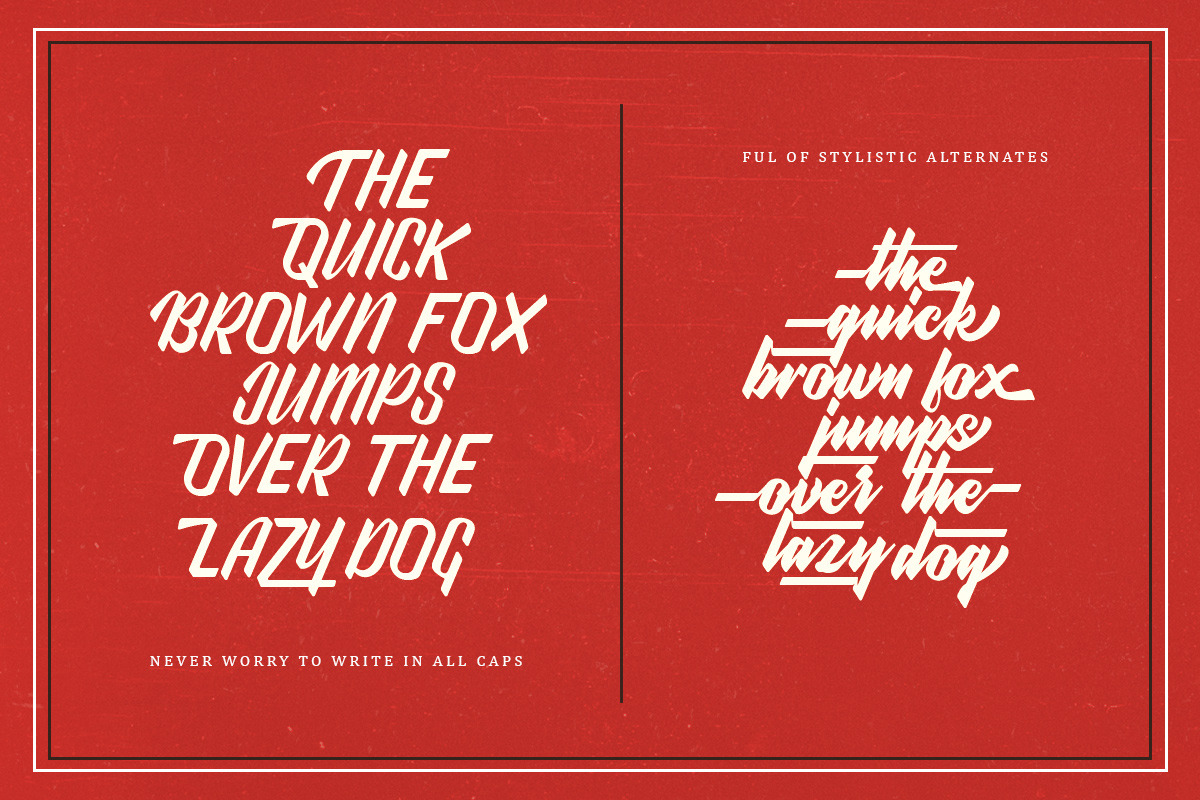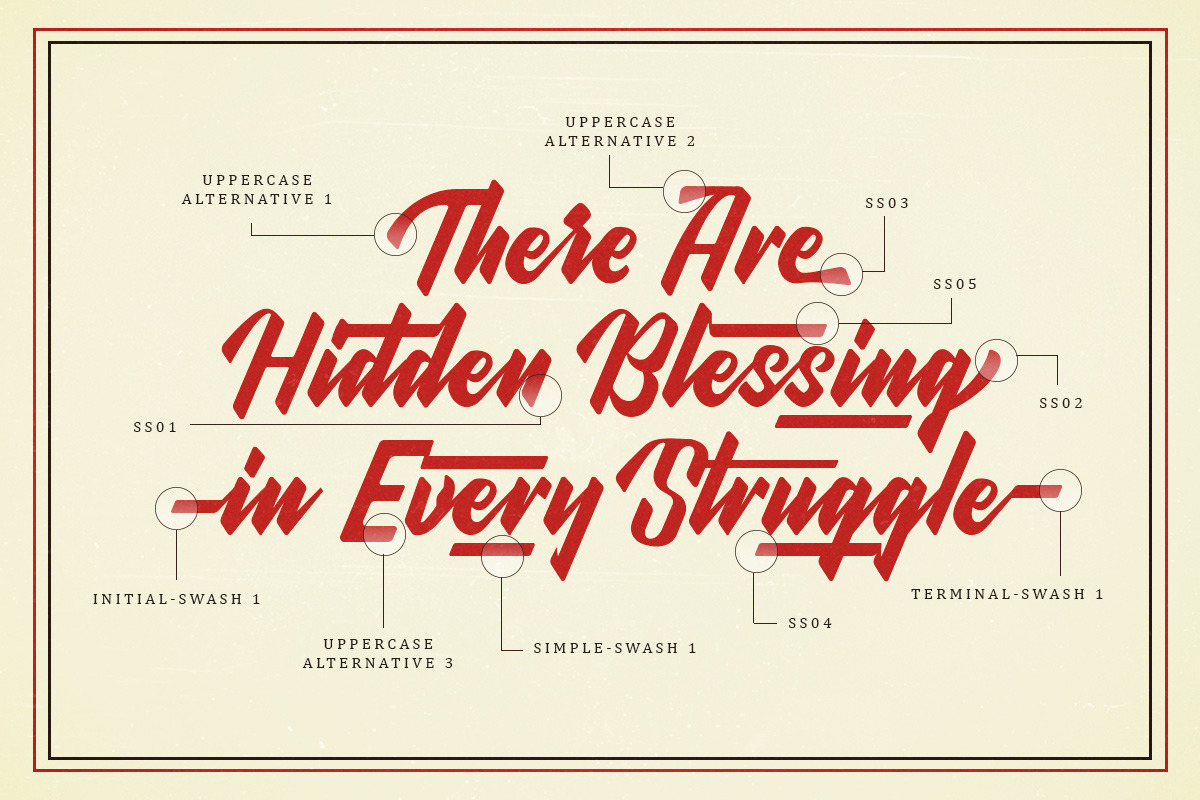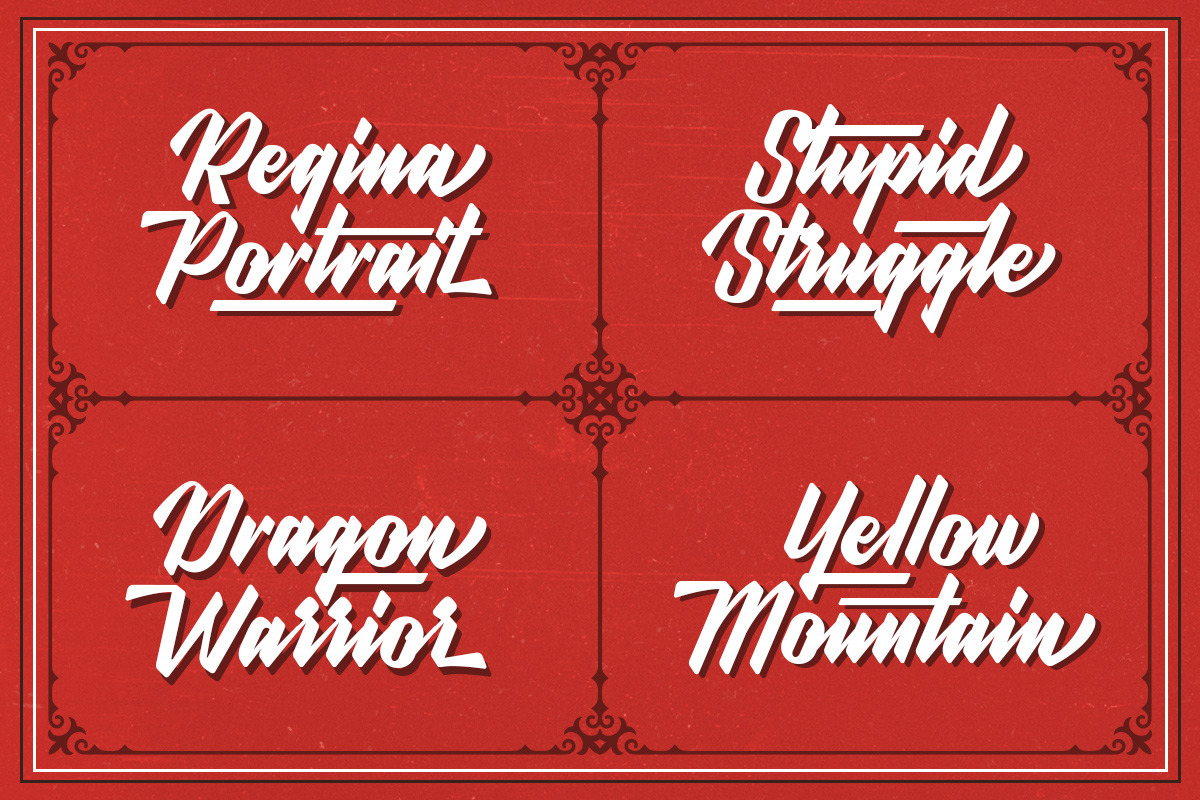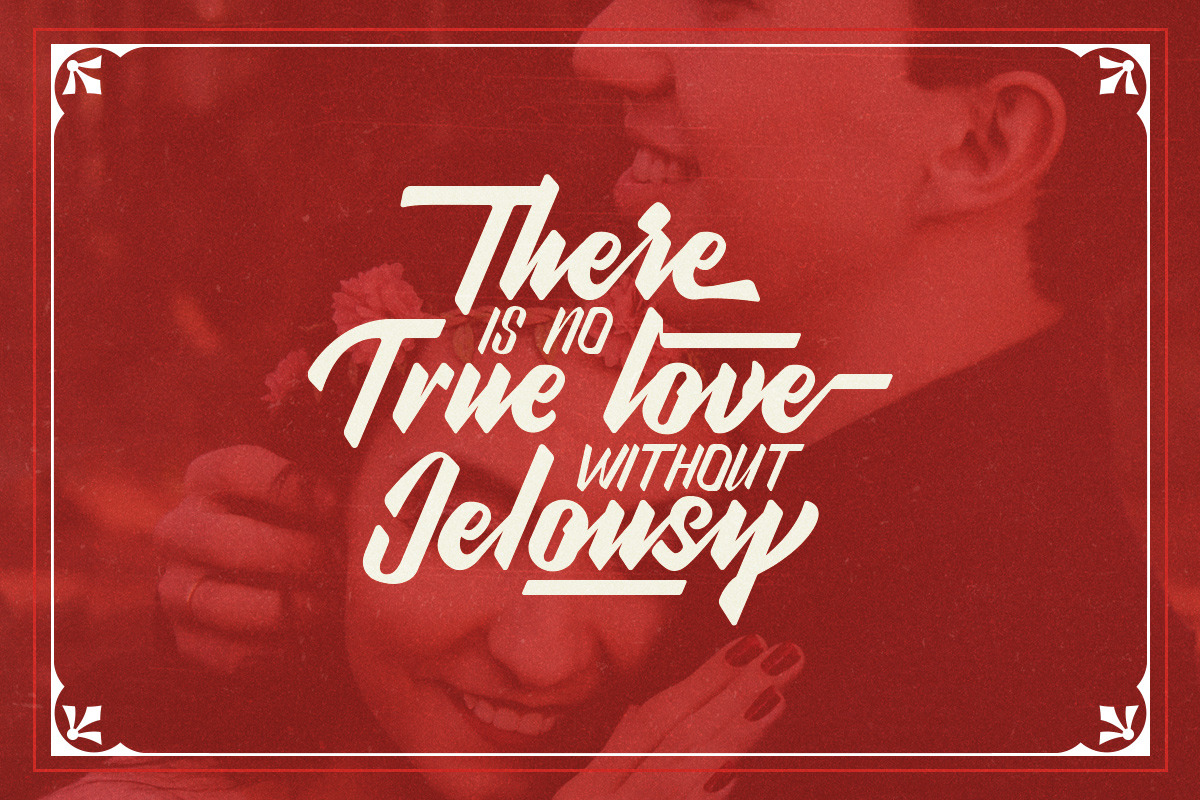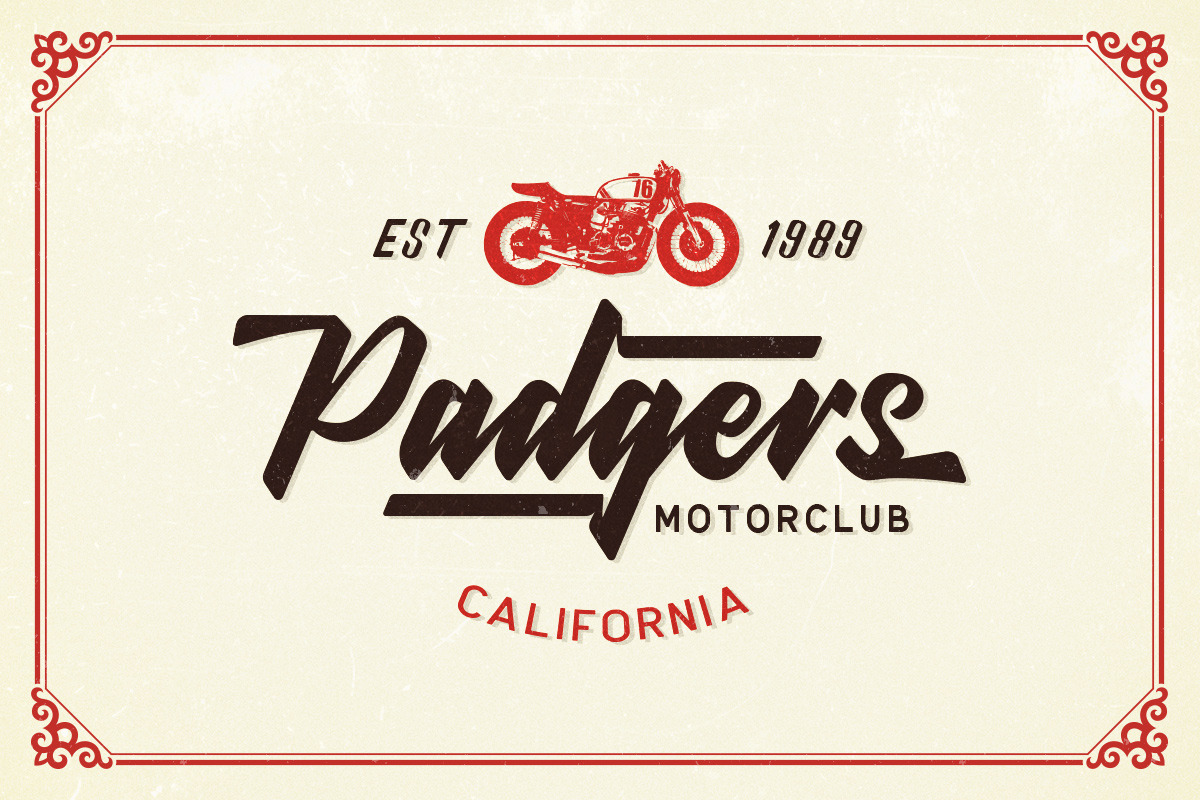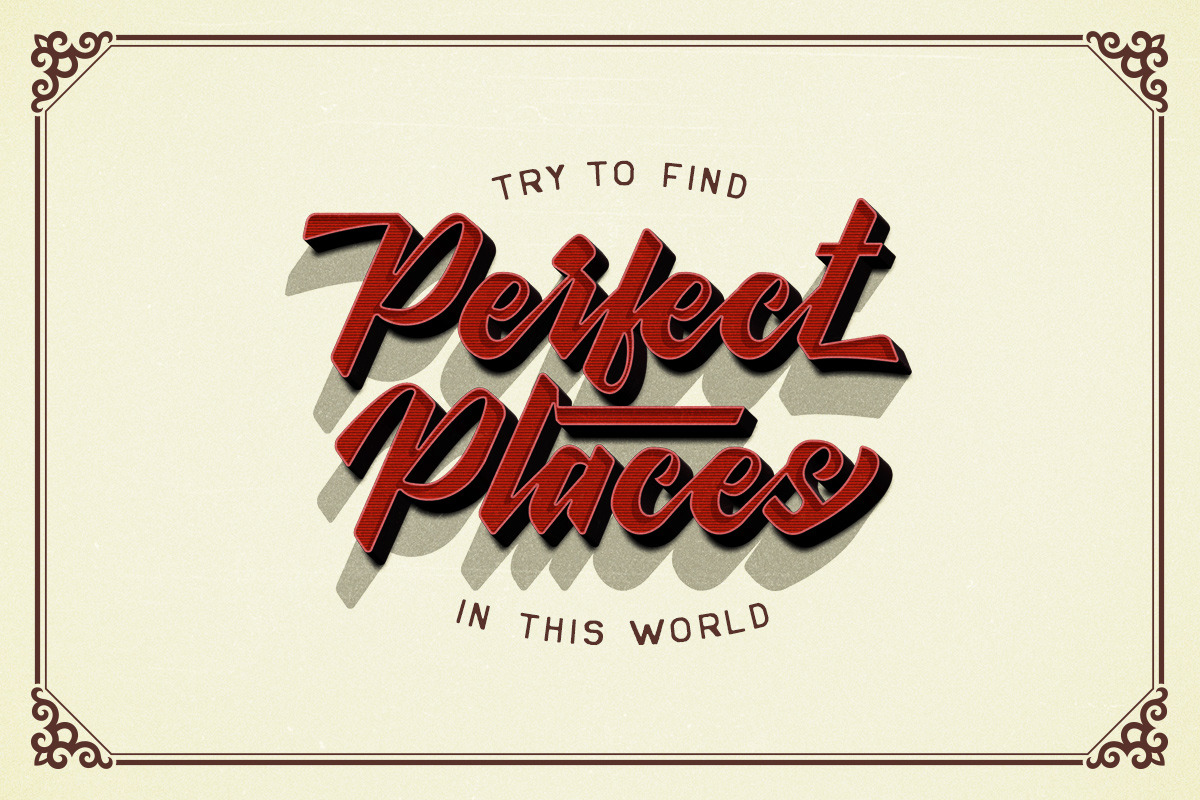
Wonder Stark Font
Wonder Stark, a acript typeface which has strong and bold characteristic. This font is perfect to use in logotype / wordmark, badge, sign board, poster, headline text, apparel, wedding invitation, etc. It has many opentype features like ligature, stylistic alternate, contextual alternate, swash, etc and support multilingual.
- It has many opentype features like ligature, stylistic alternate, contextual alternate, swash, etc and support multilingual.